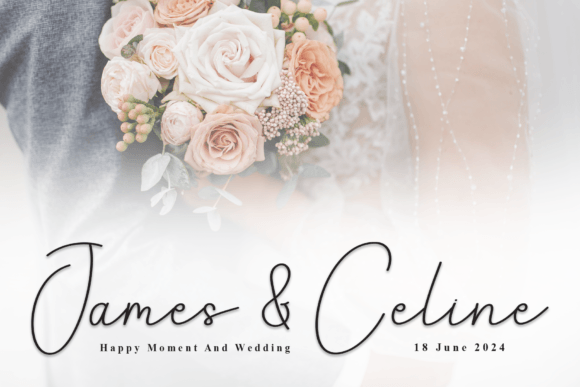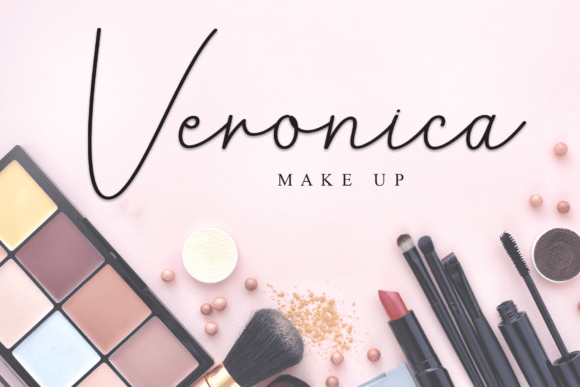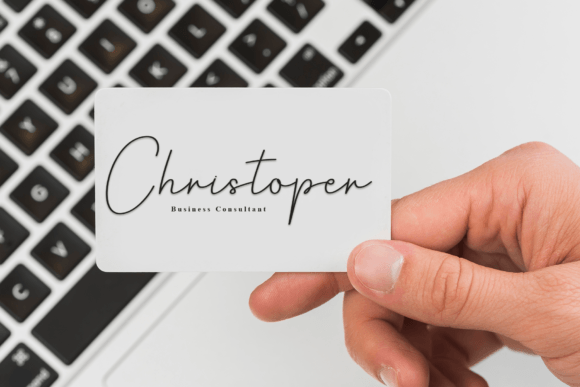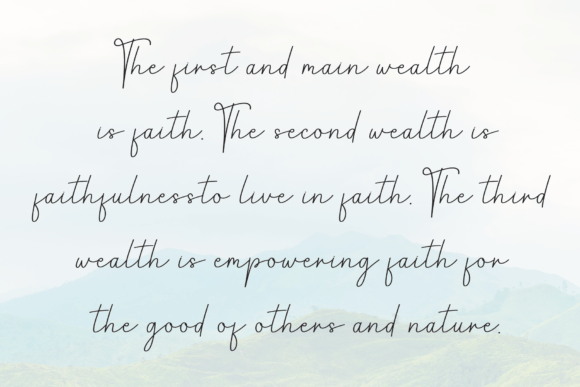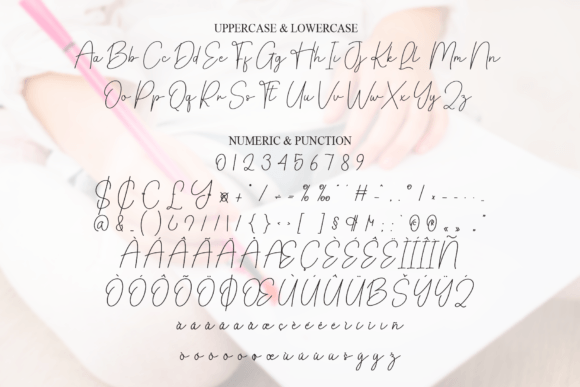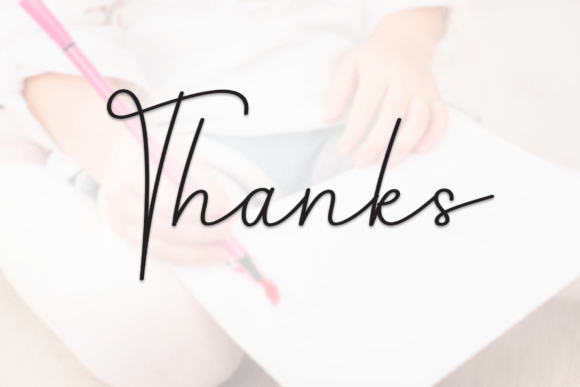
Adding a Personal Touch: The Magic of Baby Signature Font
Have you ever sat at your desk, staring blankly at a blank page, trying to come up with the perfect design concept? You know, that moment when inspiration strikes, and you feel like anything is possible? For designers, these moments are what make the creative process so rewarding. And for me, that moment came when I stumbled upon the Baby Signature Font.
This sweet, handwritten font is the epitome of warmth and friendliness. It’s as if someone wrote it with a pen, adding a personal touch that’s impossible to replicate with more formal fonts. The Baby Signature Font is perfect for projects that require a cozy, inviting feel, making it a valuable asset for designers looking to add a unique twist to their work.
Baby Signature Font Key Features
- Font Family: Baby Signature Font is a unique, hand-drawn font designed specifically for baby-related projects.
- Unique Characteristics: The font features a whimsical, cursive design with intricate details and flourishes, making it perfect for adding a touch of personality to baby-related designs.
Baby Signature Font Review
As a designer, I was excited to try out the Baby Signature Font, a script font designed specifically for baby-related products. Here’s my honest review:
- The font is incredibly cute and perfect for baby-themed projects.
- The script style is smooth and elegant, making it suitable for wedding invitations, baby shower invitations, and other special occasions.
- The font is highly customizable, allowing users to adjust the size, color, and spacing to fit their design needs.
- The font may not be suitable for corporate or professional projects due to its cutesy nature.
- The font lacks a regular weight, which may limit its versatility for certain design applications.
- The font may not be as readable at smaller sizes due to its script style.
Overall, I think the Baby Signature Font is a great addition to any designer’s toolkit, especially those working on baby-related projects. While it has some limitations, its unique style and customizability make it a great choice for certain design applications.
The Baby Signature Font is perfect for creating baby-related designs, such as:
- Baby announcements
- Baby shower invitations
- Personalized baby gifts
- Baby milestone cards